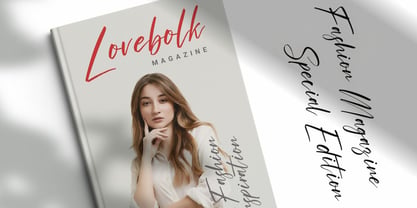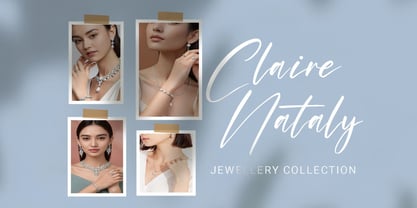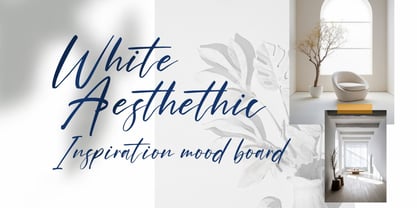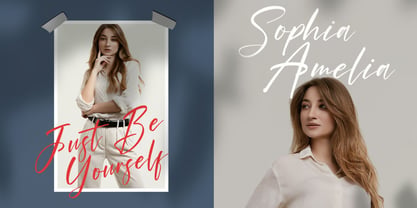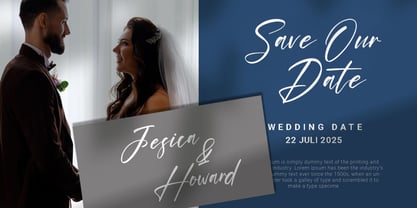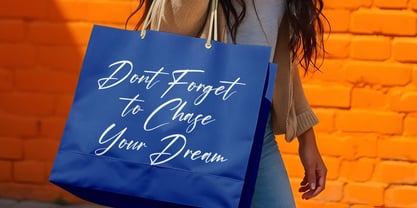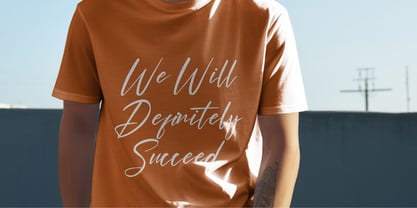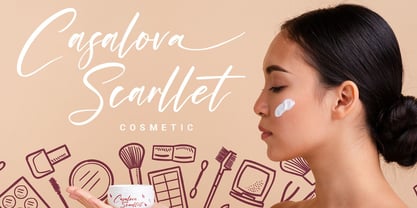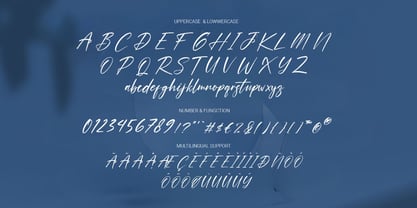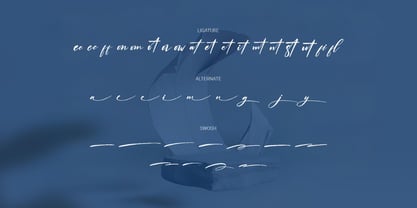
Hinora Signature
The Hinora Signature Font Family was designed by and published by RHD Creative. Hinora Signature contains 1 styles. More about this family
Hello everyone, I would like to introduce Hinora Signature - Elegant Script Font.
Hinora Signature - Elegant Script Font with Handmade character. Hinora Signature - Elegant Script Font , Modern font to make your design project stand out! Hinora Signature a perfectly choice for any creative endeavor, creating, modern, chic, lifestyle design such as logotype, title, cover, branding, invitations, wedding designs, display and magazine, social media posts, advertisements, printed quotes, product packaging, corporate brand, product designs, labels, photography, watermarks, special events and any other project with modern touch.